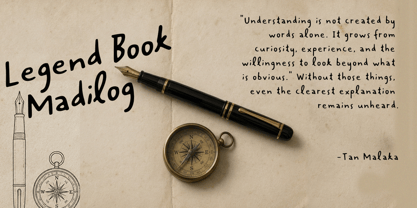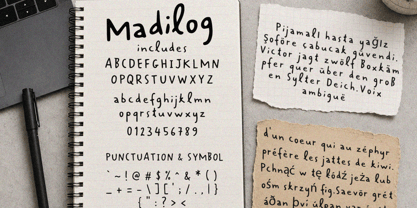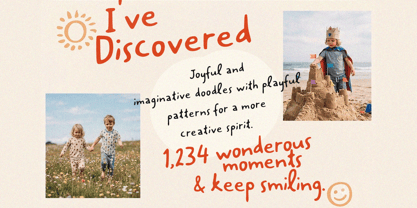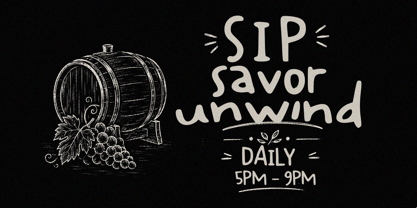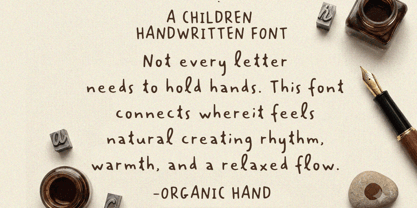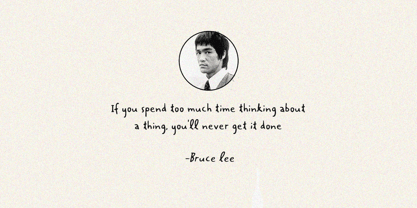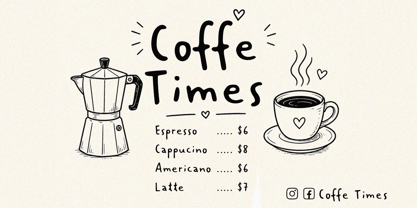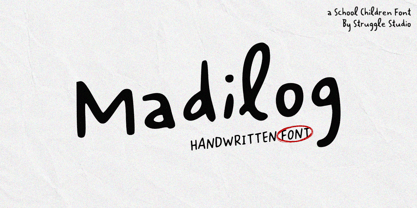
Madilog
The Madilog Font Family was designed by Andri Kurniawan and published by Struggle Studio. Madilog contains 1 styles. More about this family
Madilog – A Playful School Children Font
Bring a touch of innocent joy and youthful creativity to your designs with Madilog, a delightful handwritten font designed to mimic the charming, innocent handwriting of school children. Created by Struggle Studio, this font captures the authentic, raw, and playful essence of learning how to write.
With its natural imperfections and friendly curves, Madilog is perfect for projects that need a warm, approachable, and nostalgic human touch.
Key Features:
• Authentic Childlike Vibe: Perfectly mimics the playful and naive look of kids' handwriting.
• Versatile Design: Ideal for a wide range of creative projects.
• Easy to Read: Despite its handwritten nature, it maintains excellent legibility.
Perfect For:
• Children’s books and storybook covers
• School posters, flyers, and educational materials
• Cute branding, logos, and packaging
• Greeting cards, birthday invitations, and nursery decor
• Social media graphics and playful merchandise (T-shirts, mugs, stickers)